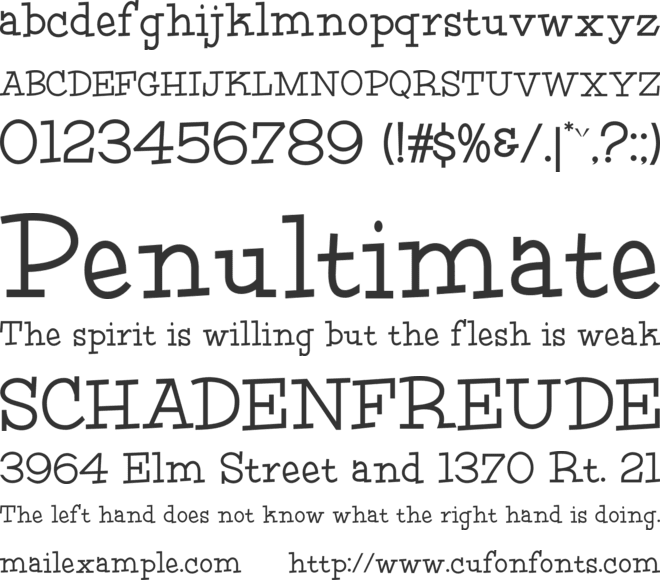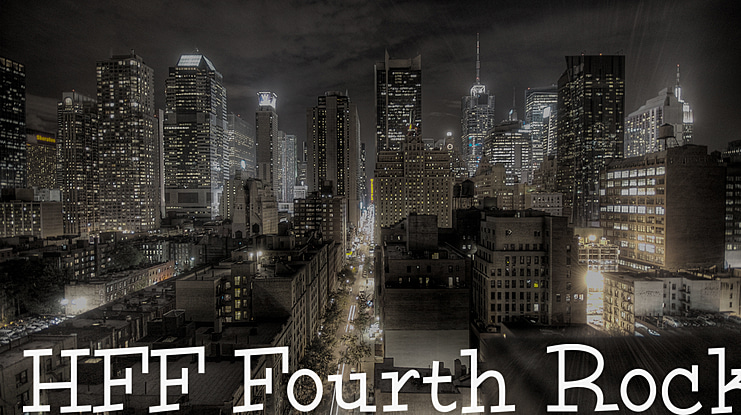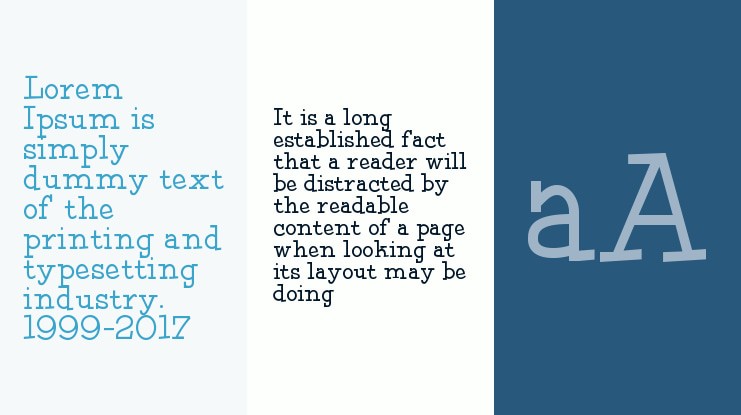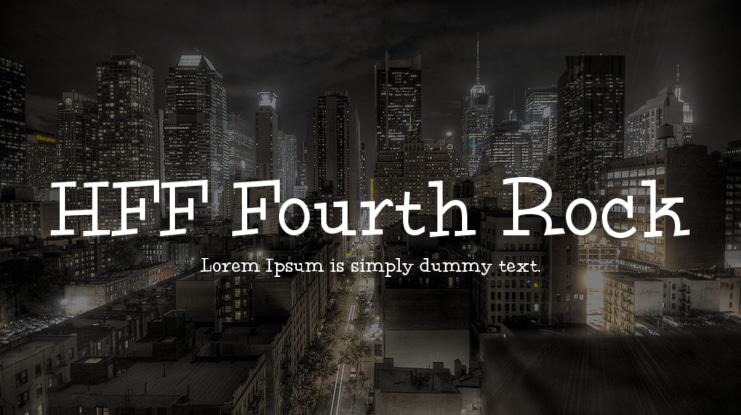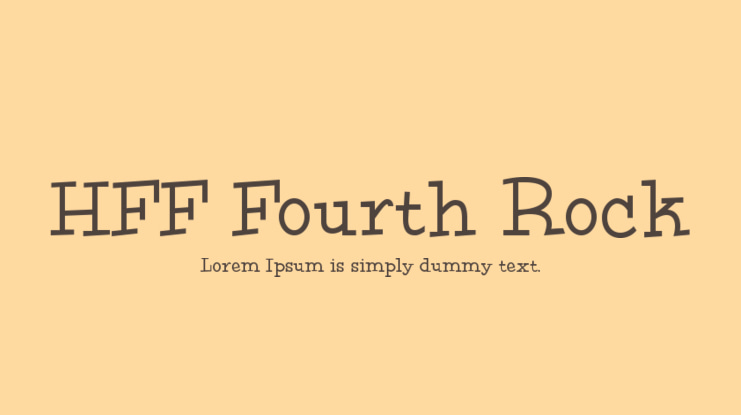
HFF Fourth Rock Font
Based on Mars Bounce from Brushstroke and Free-Style Alphabets by Dan Solo. Mars was released by Filmotype as a phototype in the 1950s.